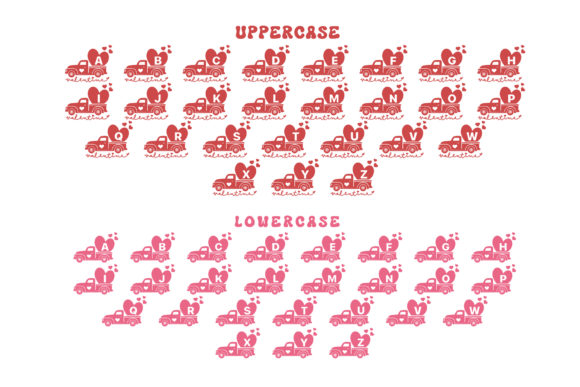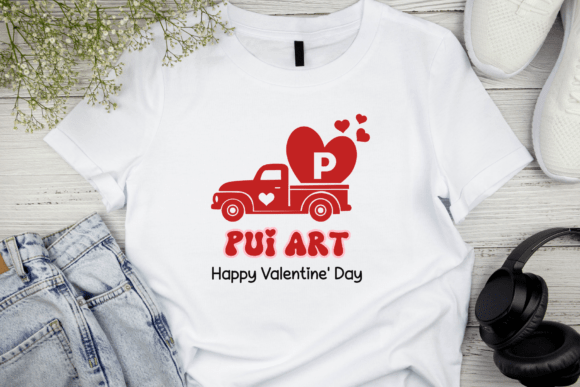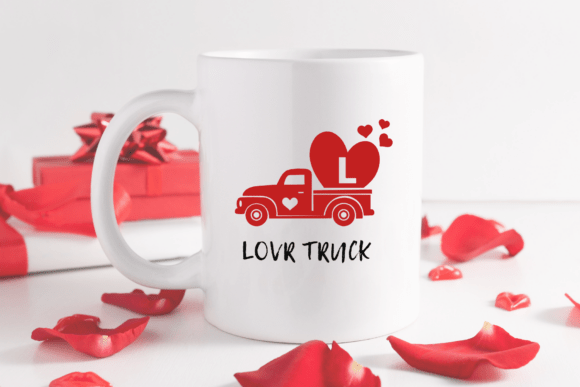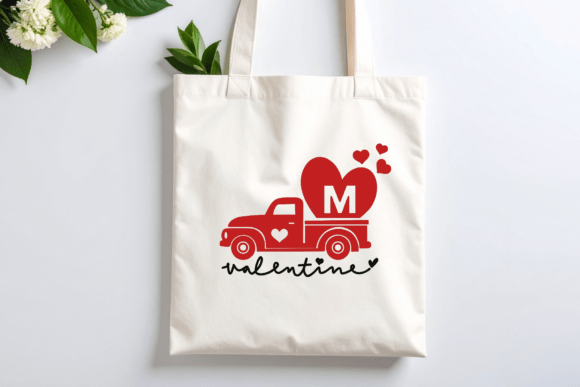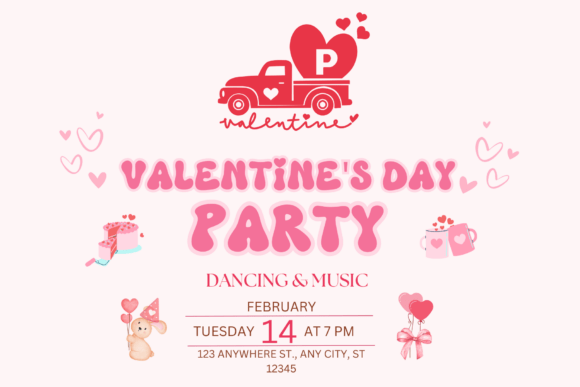
Introduction to Love Truck Monogram Font
Who hasn’t felt a rush of excitement when rummaging through a stash of craft supplies, only to stumble upon the perfect design element that makes a project go from ordinary to extraordinary? For designers and crafty enthusiasts, finding that one special resource can be a game-changer. And for Valentine’s Day projects, one design element stands out from the rest: the Love Truck Monogram Font.
This adorable alphabet is more than just a cute design – it’s a valuable resource for any creative project. With a transparent background and high-quality design, it’s perfect for stickers, sublimation, cards, T-shirts, and personalized gifts. Whether you’re looking to add a touch of whimsy to your designs or create something truly special for a loved one, the Love Truck Monogram Font is an ideal choice.
Key Features of Love Truck Monogram Font
- Unique Monogram Design: The Love Truck Monogram Font features a distinctive and stylish design, perfect for creative projects that require a touch of elegance and sophistication.
- High-Quality Design: The font boasts a high-quality design with smooth lines and a transparent background, ensuring it looks great on any background.
- Customizable: The Love Truck Monogram Font can be easily customized to fit your design needs, making it a valuable asset for any design project.
- Perfect for Creative Projects: The Love Truck Monogram Font is ideal for use in creative projects, such as wedding invitations, branding materials, and other design elements that require a touch of sophistication.
Honest Review: Love Truck Monogram Font
I recently stumbled upon the Love Truck Monogram Font, and I must say, it’s a game-changer for any creative project. As a designer, I’m always on the lookout for unique and high-quality fonts to elevate my work.
What works well with this font is its versatility. It’s perfect for weddings, anniversaries, and any other romantic occasion. The design is elegant and sophisticated, making it an excellent choice for formal events. ✨ The font is also available for free download, which is a huge plus for designers on a budget.
The Love Truck Monogram Font is available with a transparent background, which is a great feature for designers who want to layer it with other graphics or textures. It’s also highly customizable, making it easy to adjust the size, color, and style to fit your creative vision.
- ⚠️ Limited characters available, which may not be suitable for longer texts.
- ⚠️ Not ideal for digital displays, as it may not be readable at smaller font sizes.
Overall, I’m impressed with the Love Truck Monogram Font. It’s a valuable design resource that can add a touch of elegance to any creative project. If you’re looking for a high-quality, free font to spice up your designs, this one is definitely worth checking out.
The Love Truck Monogram Font is ideal for:
- Personalized gifts and accessories
- Branding and marketing materials